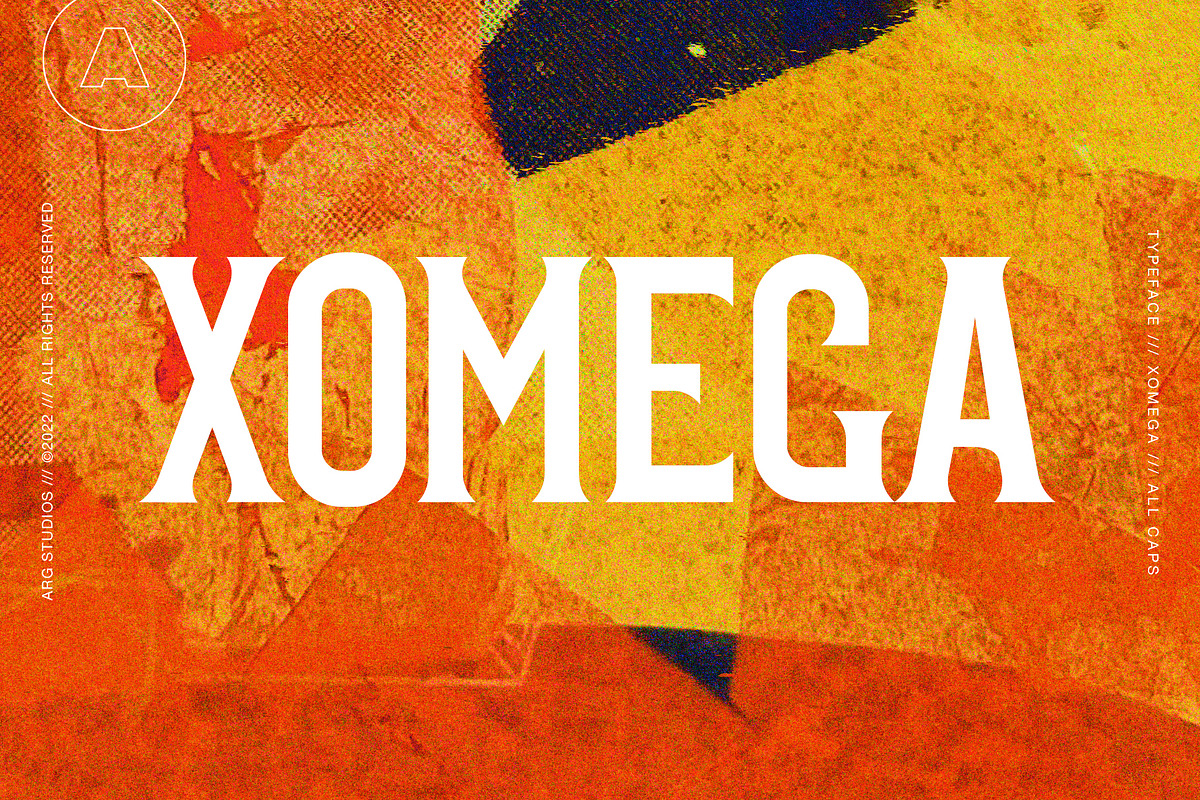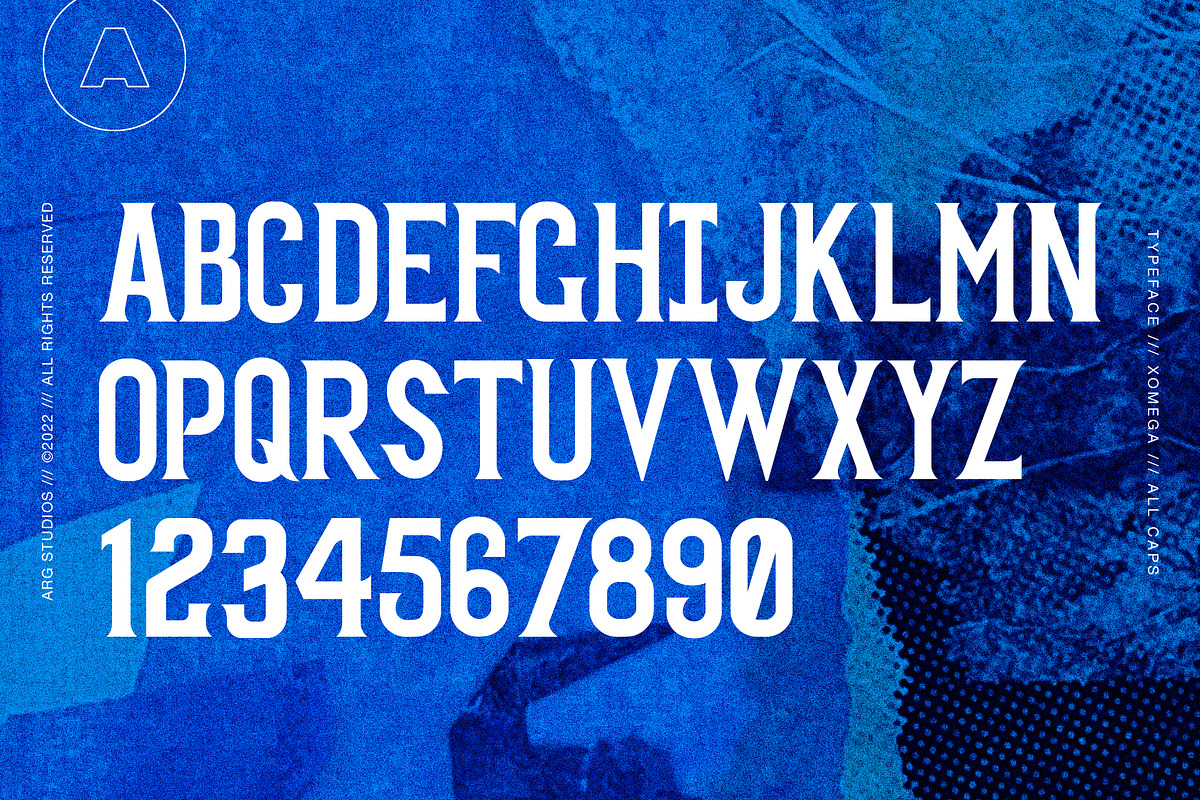
Xomega All Caps
Xomega is an all caps display typeface great for posters or other experimental designs. This will be updated on a regular basis based on feedback and demand.